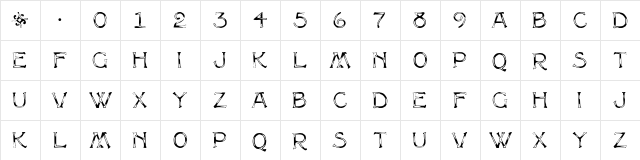
MultiformCaps Regular Font Preview
MultiformCaps Regular
MultiformCaps Regular Font Details
Design Context for MultiformCaps Typeface
MultiformCaps is a composed and adaptable typeface that performs quietly and consistently across a wide range of design contexts.